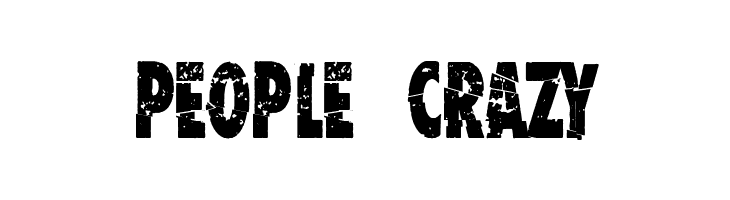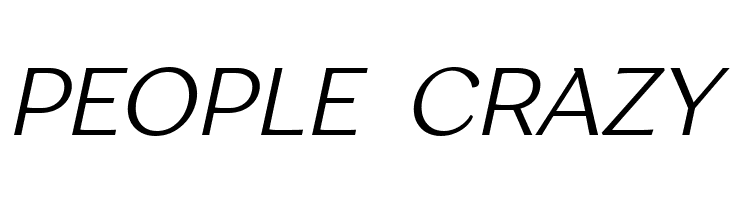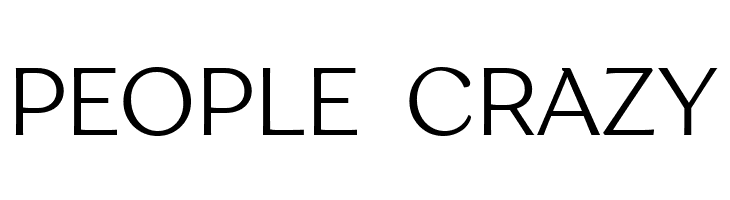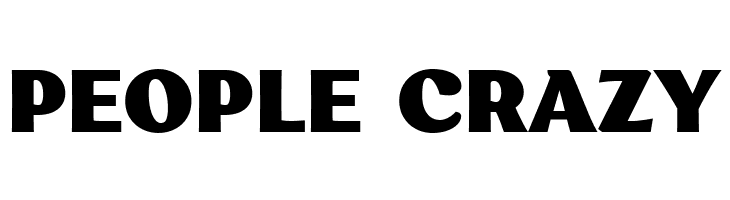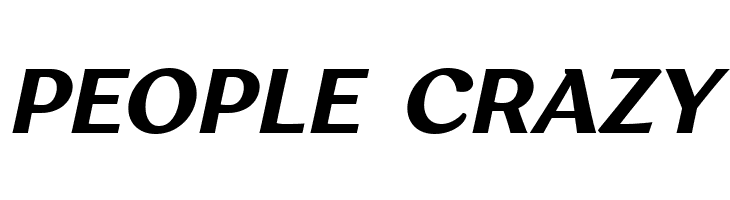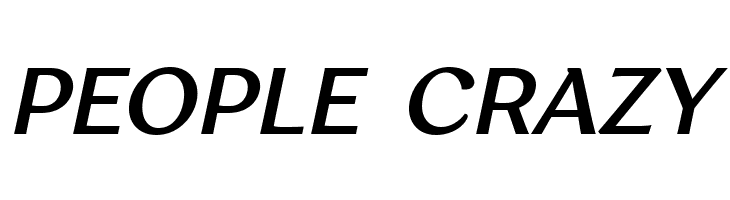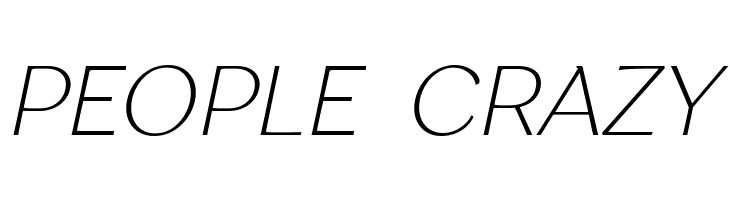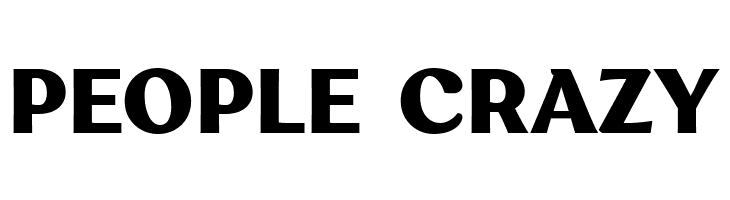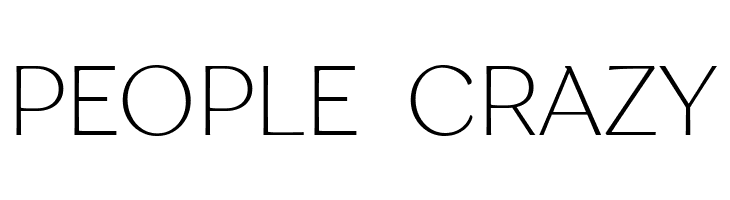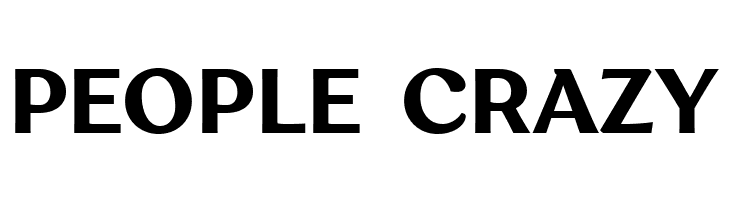
Garava Italic Font
Font by softerviews.org
An elegant serif italic font with smooth curves and high contrast.
garbage Font
A bold, edgy font with irregular, jagged edges and dynamic style.
Garbage And Death Attic Font
Font by Woodcutter
A bold, distressed font with a unique halftone texture for a gritty, industrial look.
Garbage Guerilla Font
Font by junkohanhero
A rugged, distressed font with a gritty, urban feel.
Garbage King Font
A bold, distressed font with a rugged, grunge aesthetic.
GARBAGE MEDIUM Font
A modern, angular font with a futuristic and artistic design.
Garbage2 Font
A bold, distressed font with a grunge, textured appearance.
GarbageG Font
A bold, grunge-style font with a distressed, textured appearance.
Garbageschrift Thin Font
A distressed, hand-drawn font with irregular edges and a grunge aesthetic.
Garbata Trial Black Font
A bold, high-contrast font with rounded edges and a strong presence.
Garbata Trial Black Italic Font
A bold, italic font with a dynamic and modern style.
Garbata Trial Bold Font
A bold, modern serif font with a classic touch, ideal for impactful designs.
Garbata Trial Bold Italic Font
A bold, italic font with smooth strokes and moderate contrast, offering a dynamic and elegant appearance.
Garbata Trial Extrabold Font
A bold and robust font with strong, thick strokes and a confident presence.
Garbata Trial Extrabold Italic Font
A bold, italic font with a dynamic and modern style.
Garbata Trial Extralight Font
A refined, elegant font with thin strokes and a minimalist aesthetic.
Garbata Trial Extralight Italic Font
A sleek, extra-light italic font with a modern and elegant style.
Garbata Trial Italic Font
An elegant italic font with smooth curves and a dynamic slant.
Garbata Trial Light Font